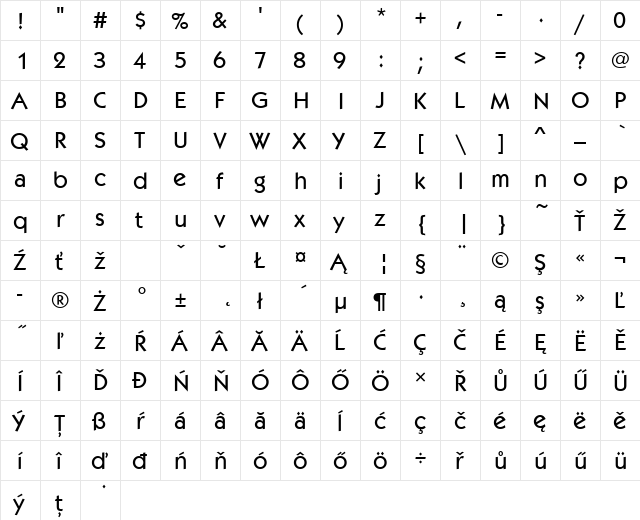
KabelItcTEEMed Regular Font Preview
KabelItcTEEMed Regular
Design Context for KabelItcTEEMed Typeface
KabelItcTEEMed offers clean, dependable letterforms without strong stylistic allegiance, making it a practical choice for designers who need flexibility.